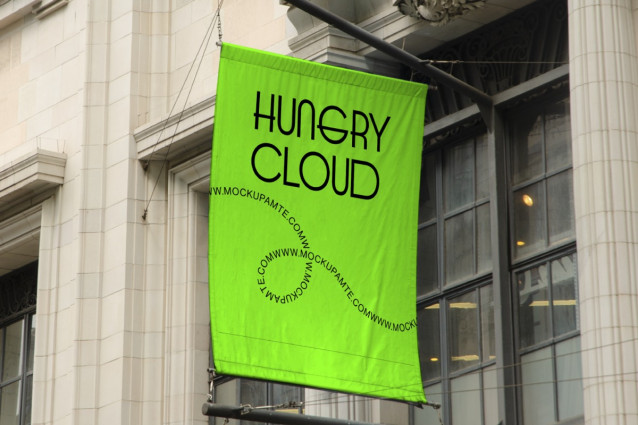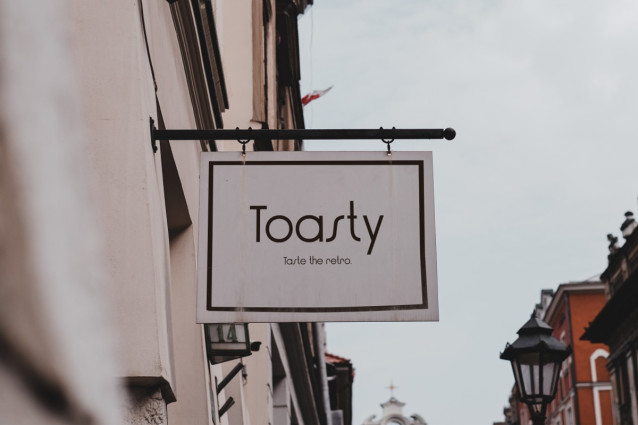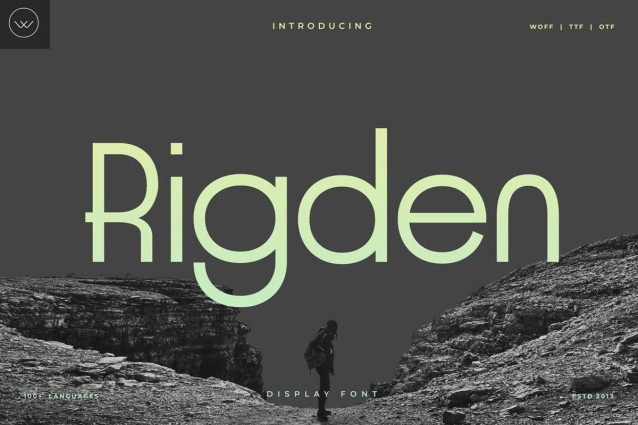
Rigden Font
Rigden Font is a modern sans-serif typeface crafted for elegance, clarity, and timeless sophistication. With its smooth letterforms, balanced proportions, and subtle curves, Rigden is ideal for editorial design, fashion branding, luxury packaging, and stylish digital interfaces.